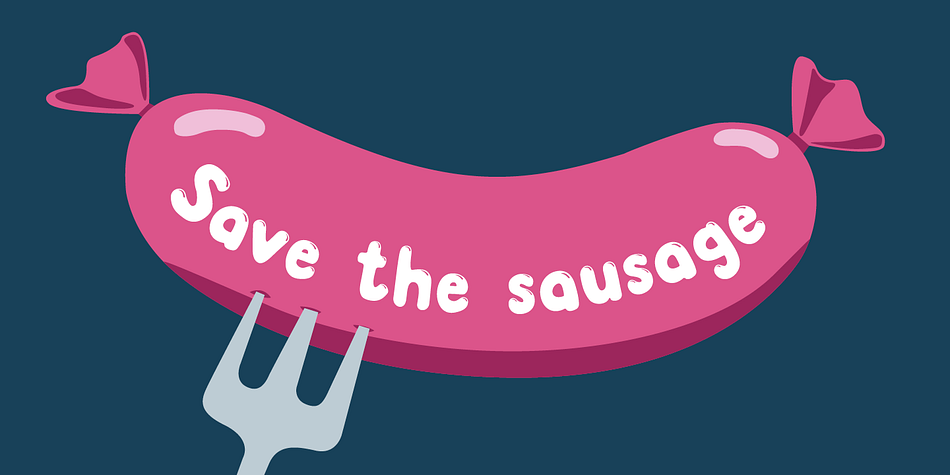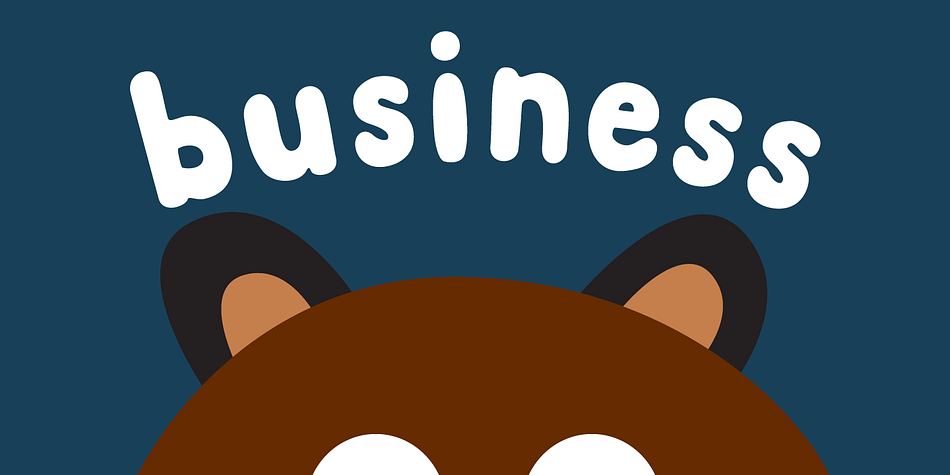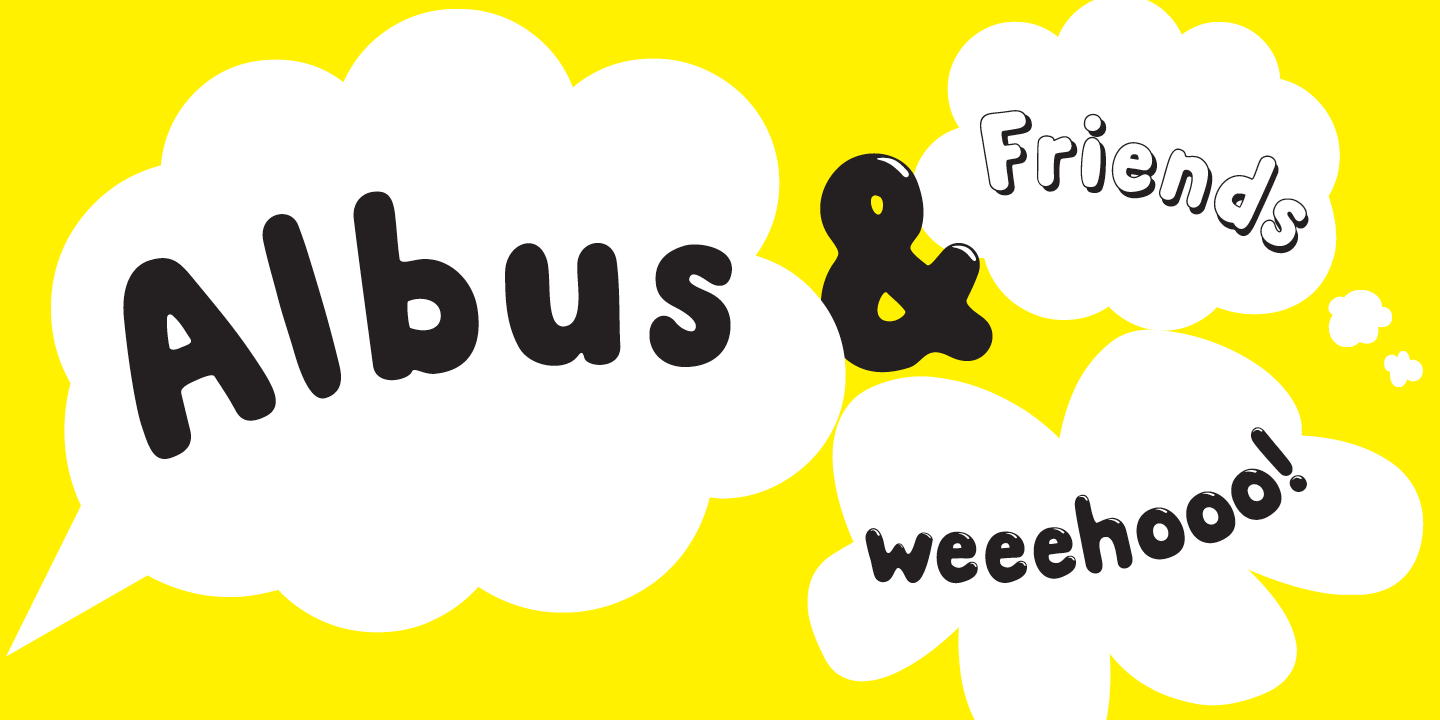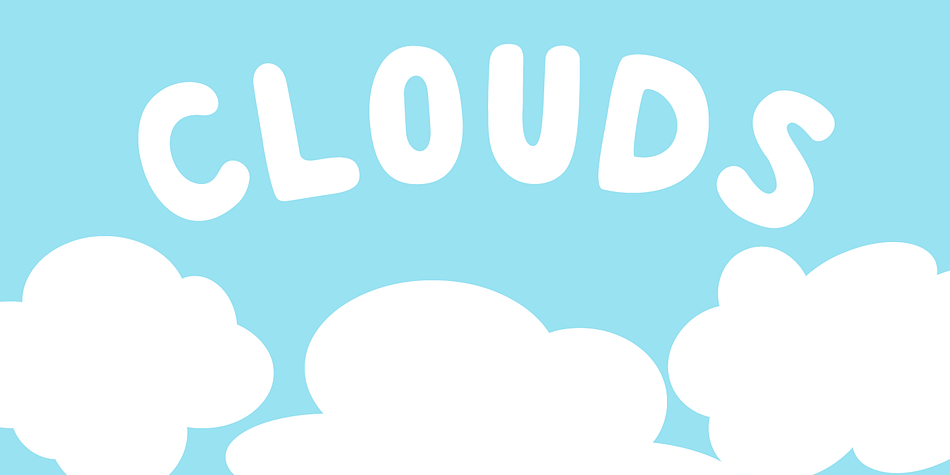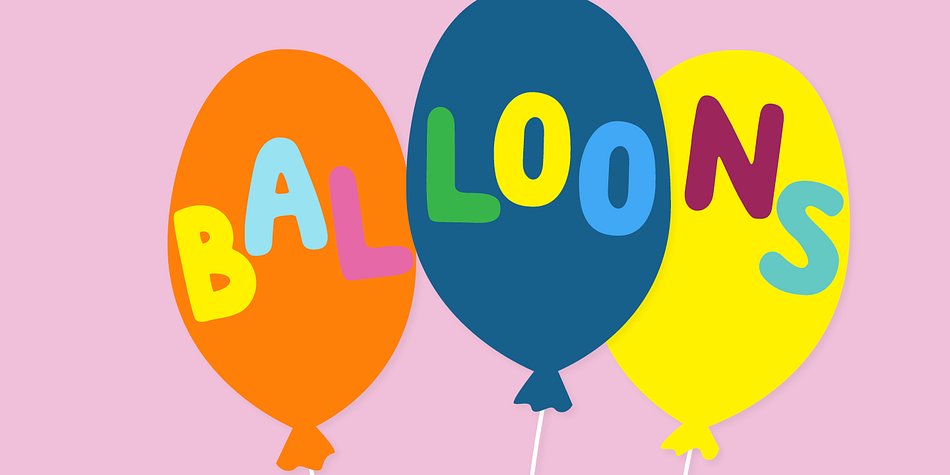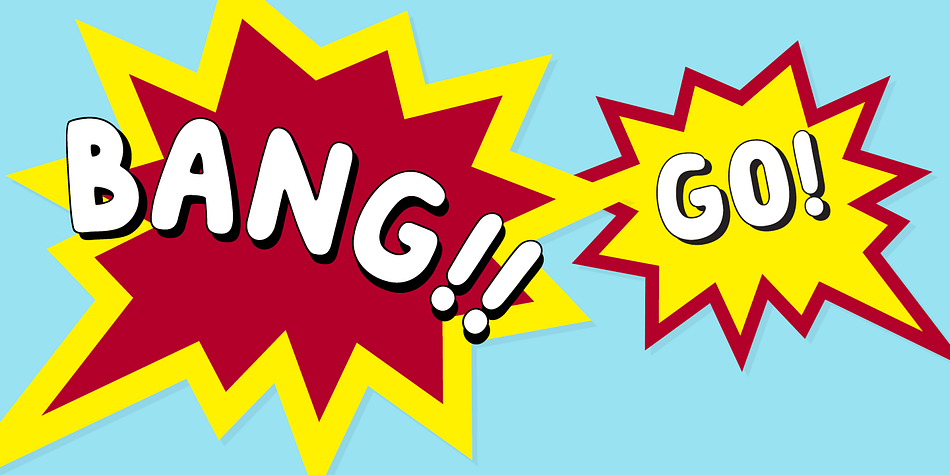
Albus is a comic, dingbat and kids font family. This typeface has five styles and was published by Gustav & Brun.
Albus is bold and friendly. It is your wizard when you’re lost in communication.
Perfect for the not so serious statements, or maybe for the very serious ones? Maybe it fits on your next children’s book, or maybe on your webshop?
The Albus Friends (ornaments) includes speech bubbles, clouds and other fluffy stuff. You can also buy the whole family for an extra friendly price.
Let Albus be your wand and let it help you create the kind of message you want. Let’s create some magic!